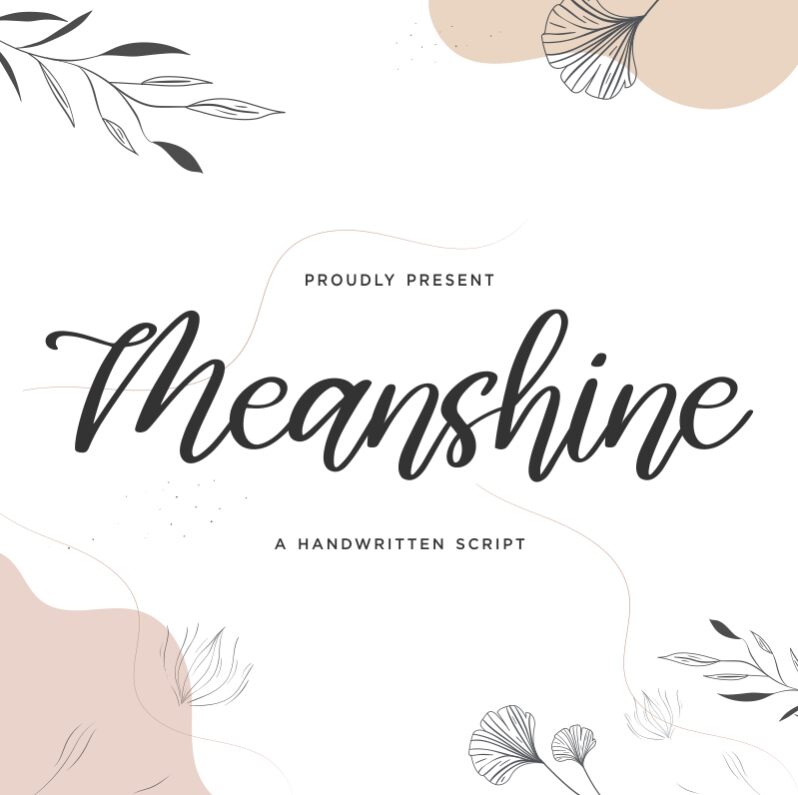
Meanshine
Welcome to the world of Meanshine, a mesmerizing calligraphy font designed by Qwrtype Foundry. With its semi-light weight, this font exudes an air of elegance and sophistication.
Its graceful curves and intricate strokes make it perfect for creating stunning wedding invitations, luxurious branding materials, and stylish editorial designs. Whether you're working on a romantic project or aiming for a touch of refined beauty, Meanshine is your go-to font.
Let its flowing script transport your audience to a world where every word shines with effortless charm.